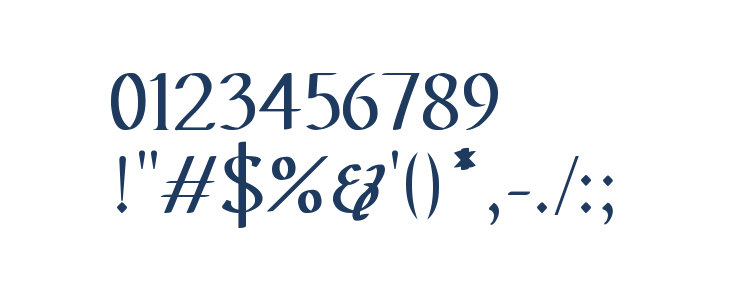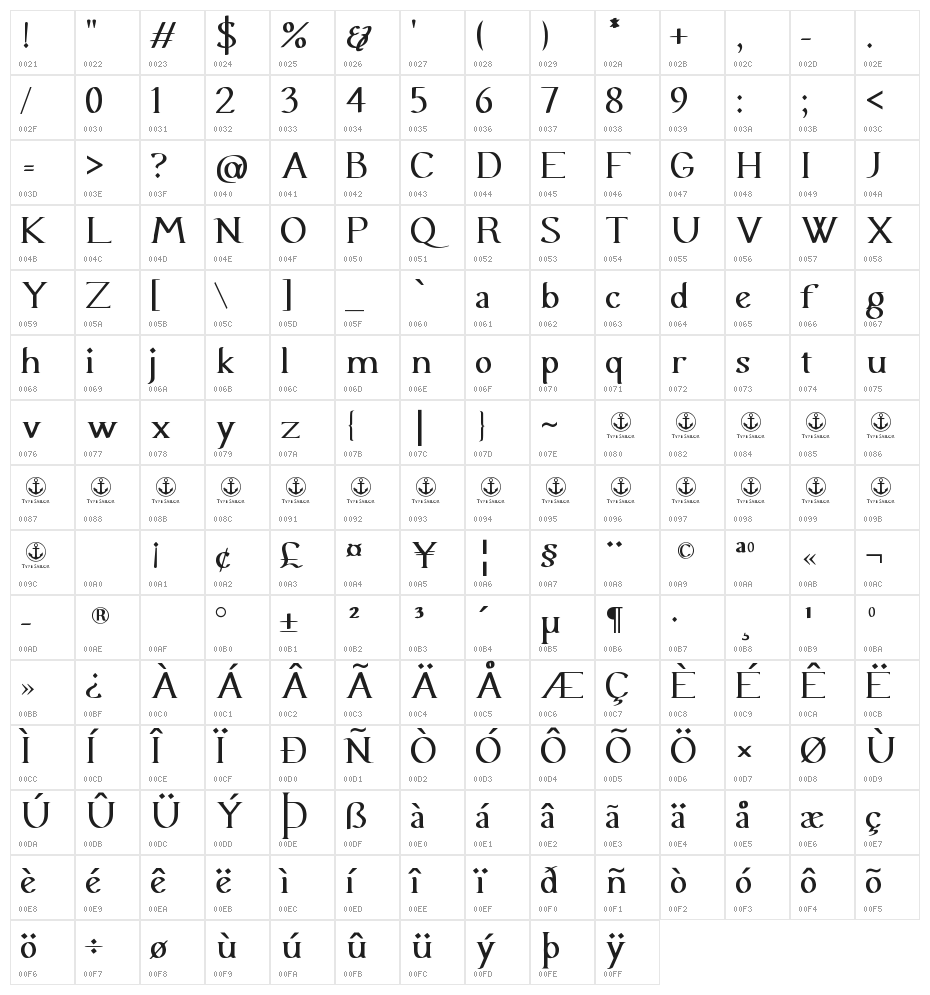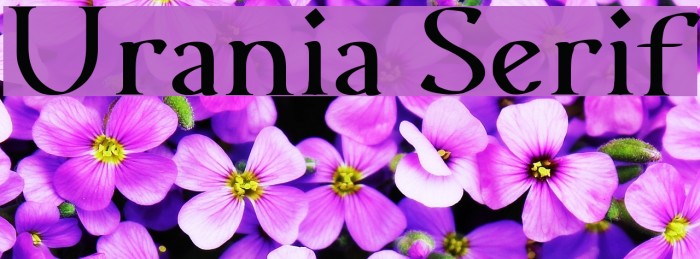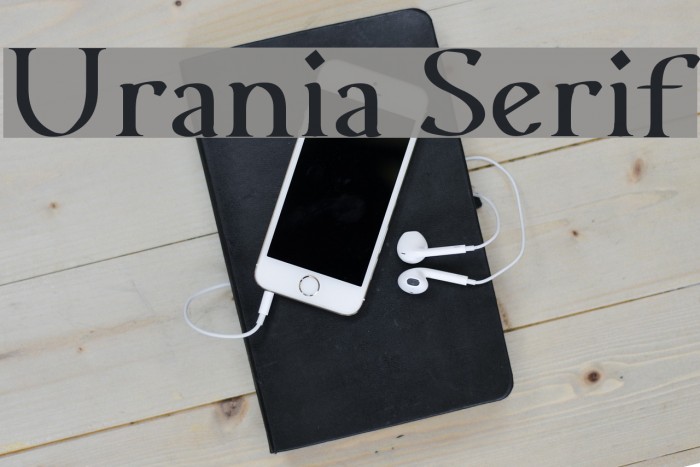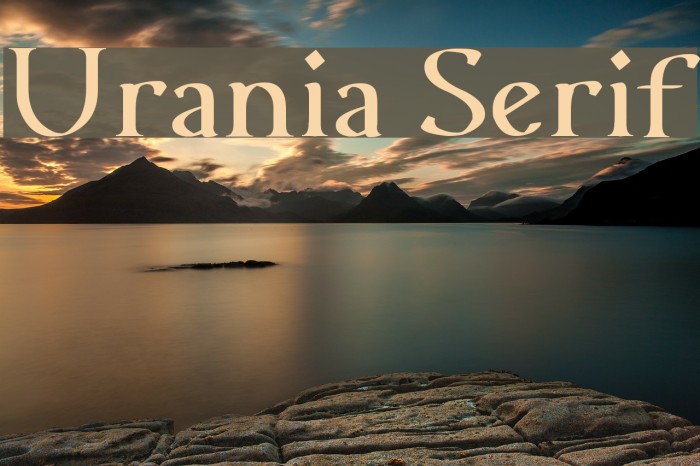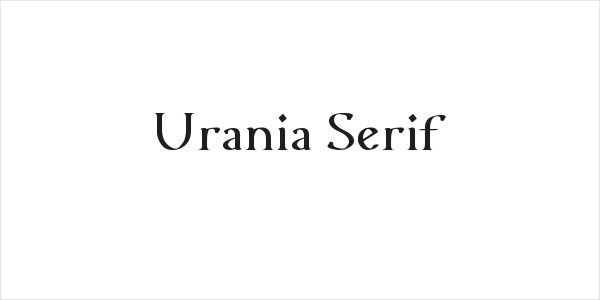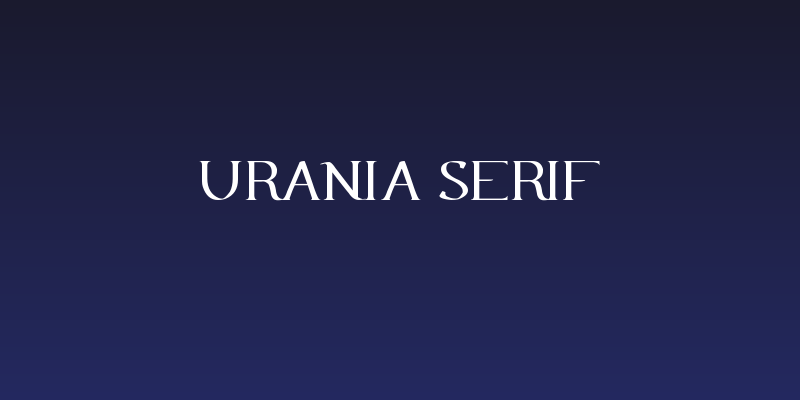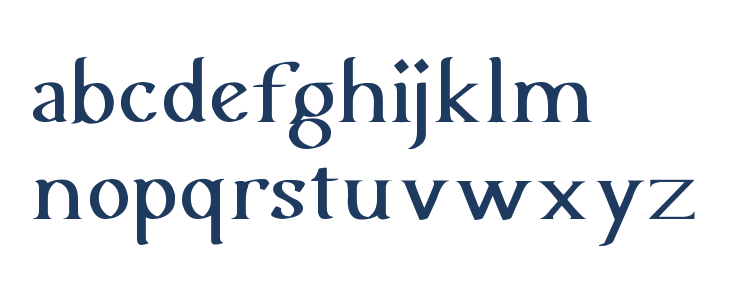
Urania Serif Font
Urania Serif Description
This font features a classic serif style with elegant and refined strokes. The uppercase letters are bold and commanding, while the lowercase letters maintain a graceful and fluid appearance. The numerals are distinct and well-proportioned, ensuring readability. Special characters are designed with a touch of sophistication, adding to the overall aesthetic. The font's design is suitable for conveying a sense of tradition and authority, making it ideal for formal documents and branding that requires a touch of elegance.
| Proposed Projects | Ideal for formal documents, branding, editorial design, and invitations. |